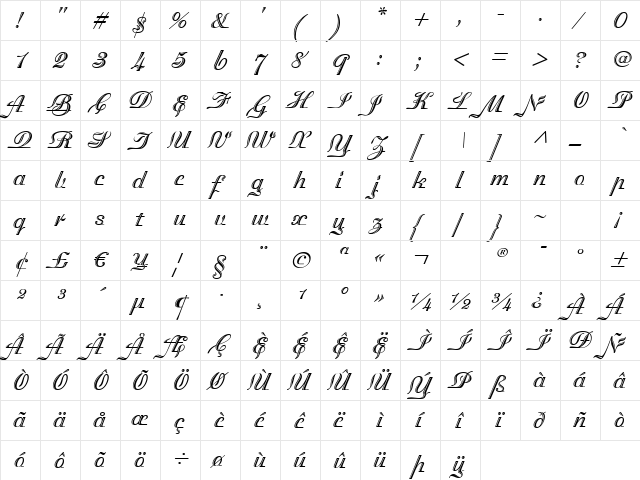
Madisonian Engraved
| Style | Engraved |
Design Context for Madisonian Typeface
Madisonian is built around its visual character rather than neutral utility — its distinctive forms are designed to make an impression at display sizes.
Font Pairing: Pair with a clean neutral sans-serif for body copy to let Madisonian's character lead without overwhelming the composition.
Pro Tip: Treat Madisonian as the centrepiece of your typographic hierarchy. One strong heading set in a decorative face can carry an entire layout.